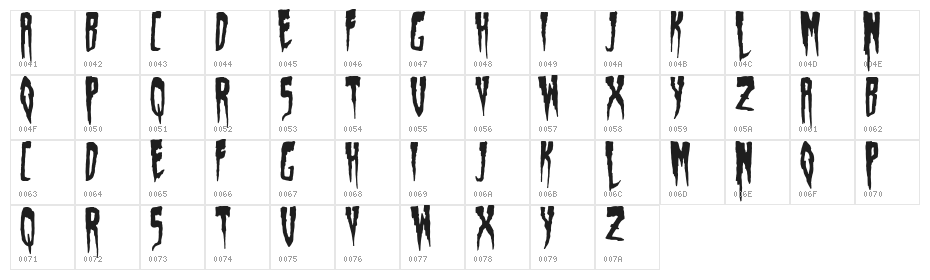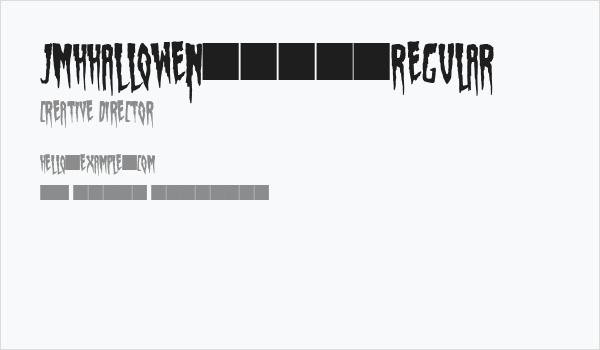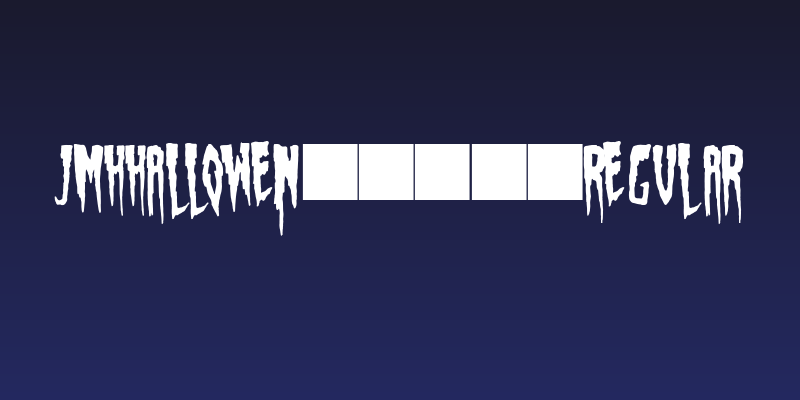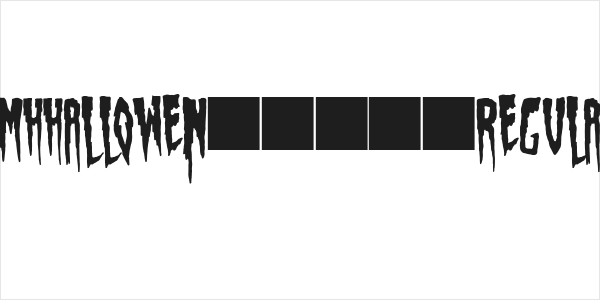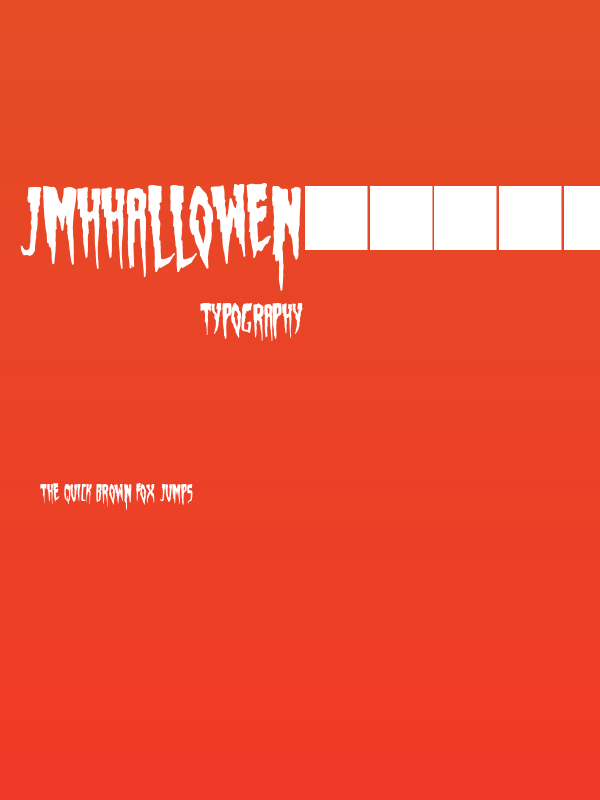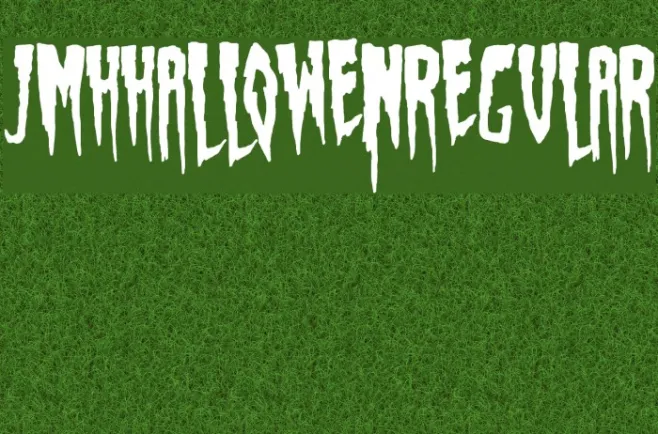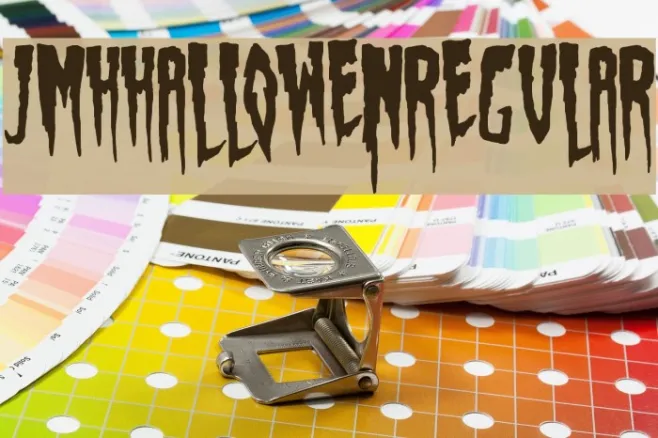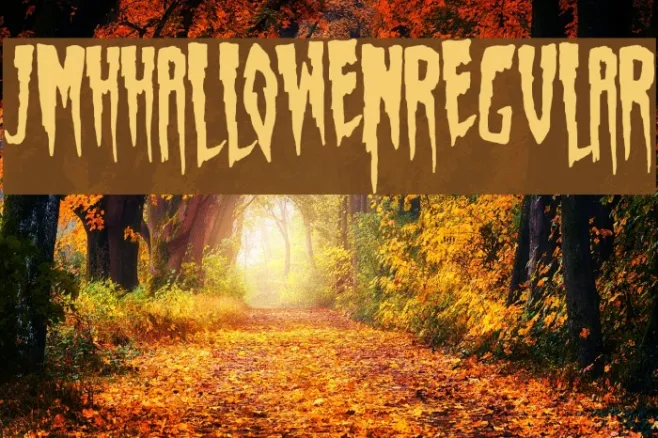
JMHHallowen2017-Regular Font
JMHHallowen2017-Regular Description
This font features a spooky, jagged design reminiscent of classic horror themes. Each letter is uniquely distorted, with sharp edges and irregular forms that evoke a sense of unease and mystery. The uppercase and lowercase letters maintain a consistent eerie style, while the numbers and special characters follow suit with their own unsettling twists. The overall appearance is perfect for Halloween-themed projects, with its dramatic and eye-catching presence.
| Proposed Projects | Ideal for Halloween posters, horror movie titles, haunted house flyers, and themed party invitations. |